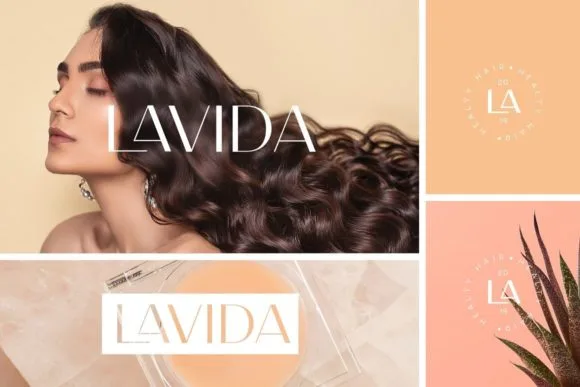
Carla font is an exquisite and light sans serif text style. This text style is flawlessly created and profoundly nitty gritty.
Carla font text style is PUA encoded which implies you can get to all glyphs and swashes effortlessly!